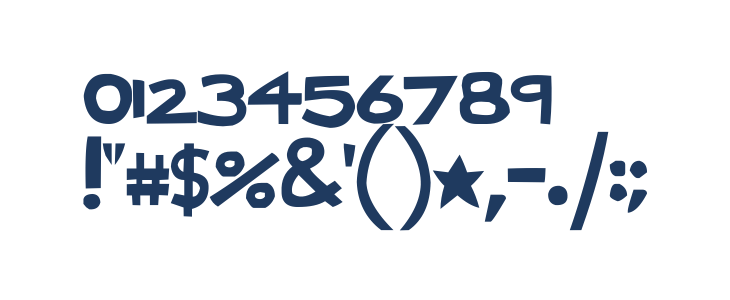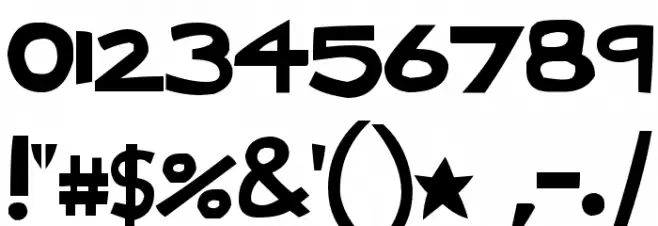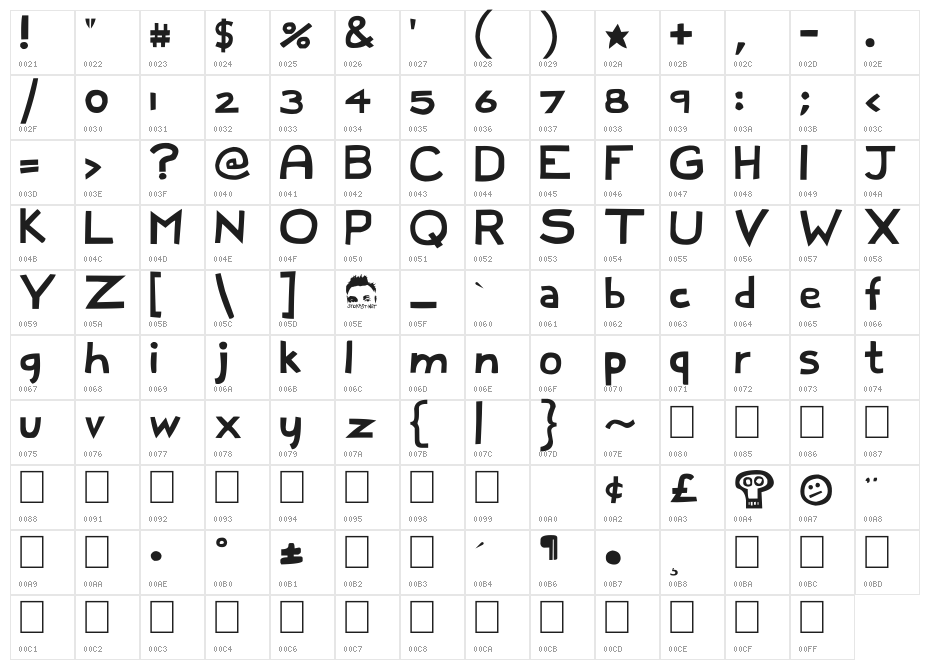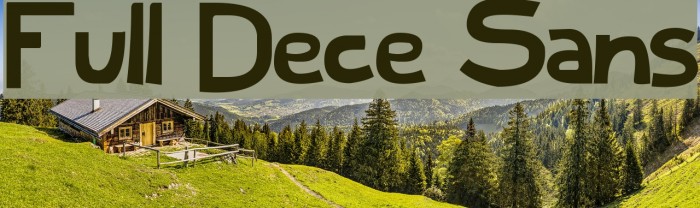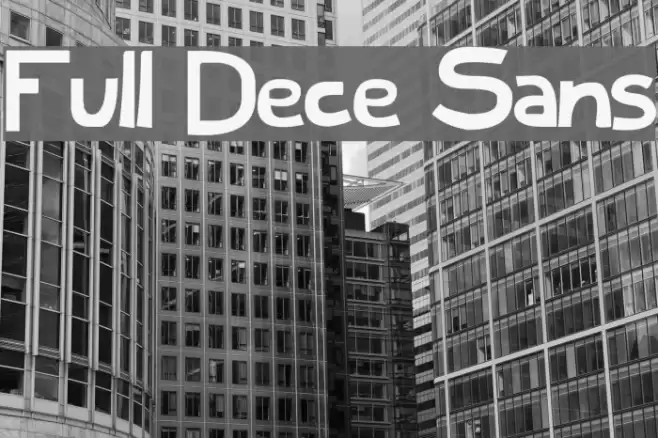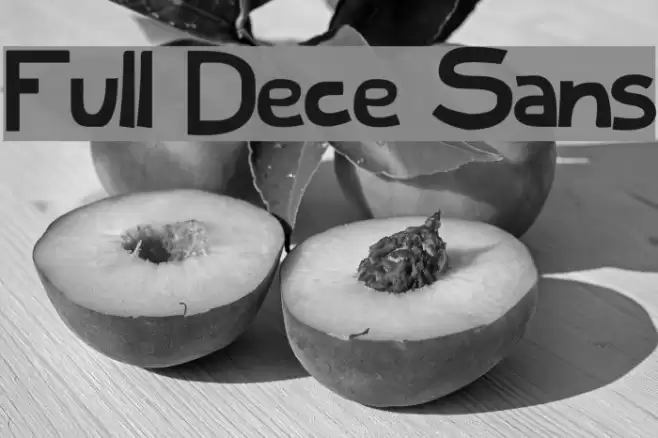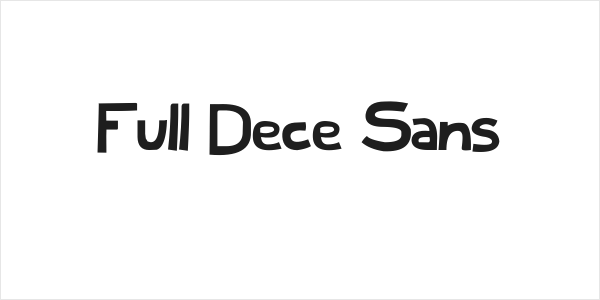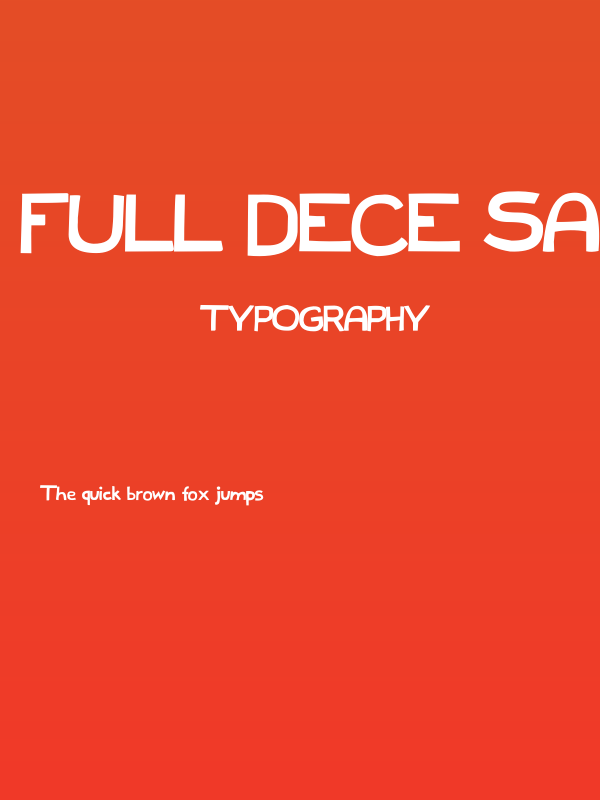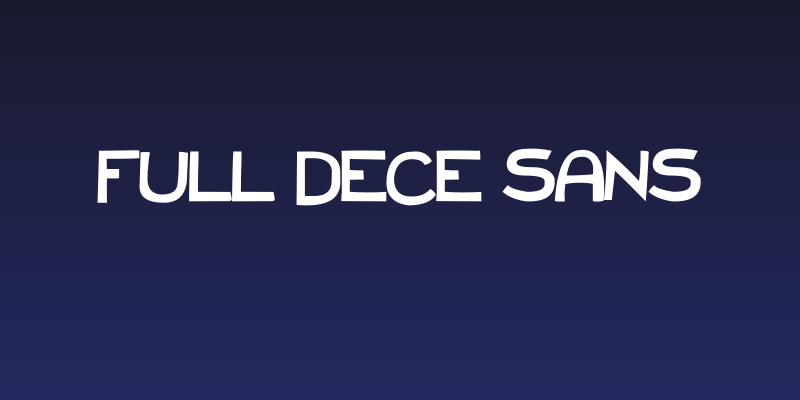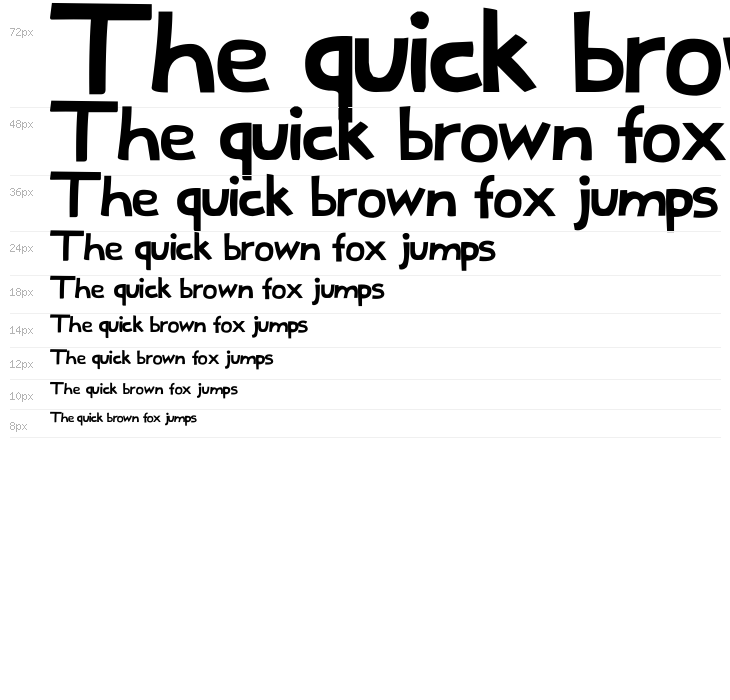
Full Dece Sans Font
Full Dece Sans Description
This font features a bold and playful design with a unique blend of geometric and organic shapes. The uppercase letters have a strong presence with slightly curved edges, giving them a friendly and approachable appearance. The lowercase letters maintain a consistent style, with rounded forms and a slight slant that adds a dynamic feel. The numerals are bold and easily readable, matching the overall aesthetic. Special characters are creatively designed, adding to the font's versatility. This font is ideal for projects that require a fun and modern touch.